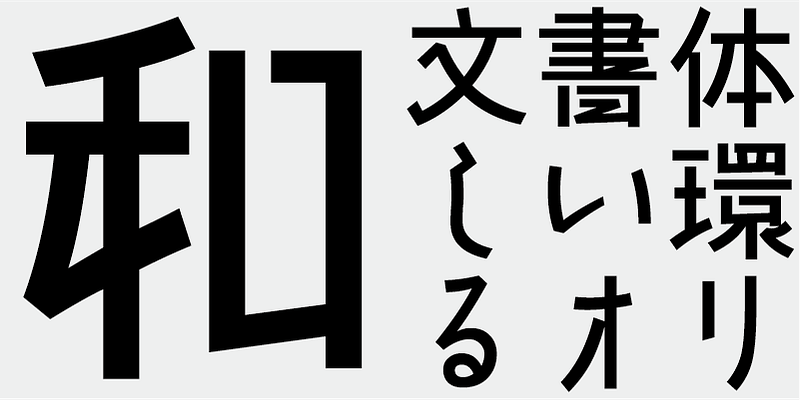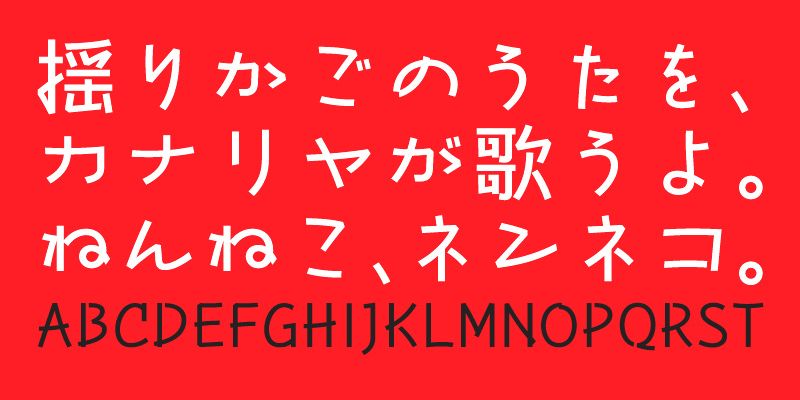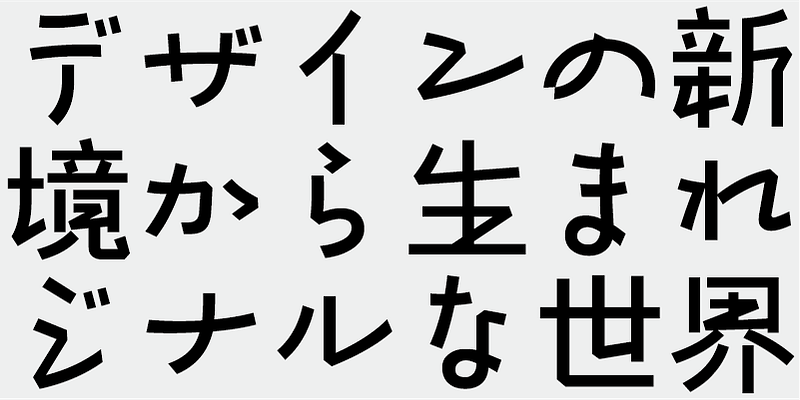
This typeface is characterized by its uniquely shaped kana characters, some of which are vertically long, and others horizontally long. Enjoy composing text in this typeface, free from the rigidity of gothic (sans-serif) designs and making use of the wider spaces. This is a Japanese typeface with a relaxed informal style.